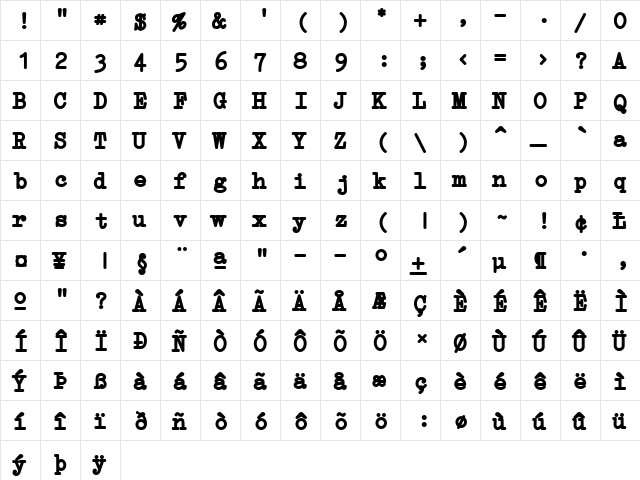
Erica Type Bold
| Foundry | Peter Wiegel |
| Designer | Peter Wiegel |
Design Context for Erica Type Typeface
Erica Type offers clean, dependable letterforms without strong stylistic allegiance, making it a practical choice for designers who need flexibility. The heavy weight commands attention and anchors typographic hierarchies.